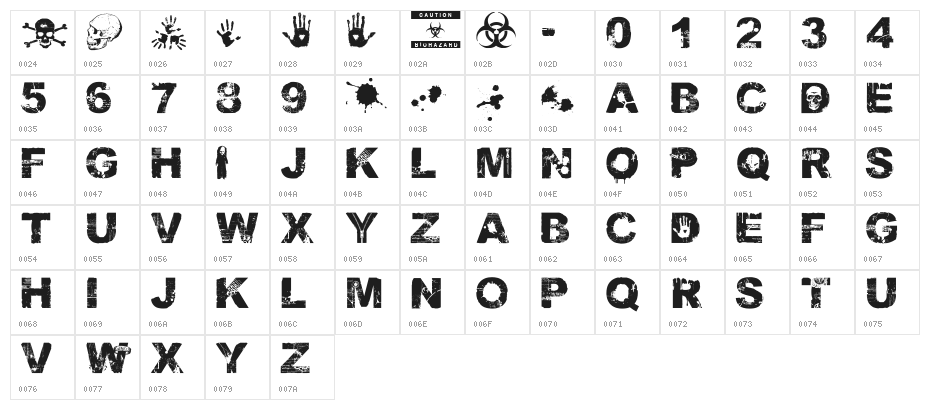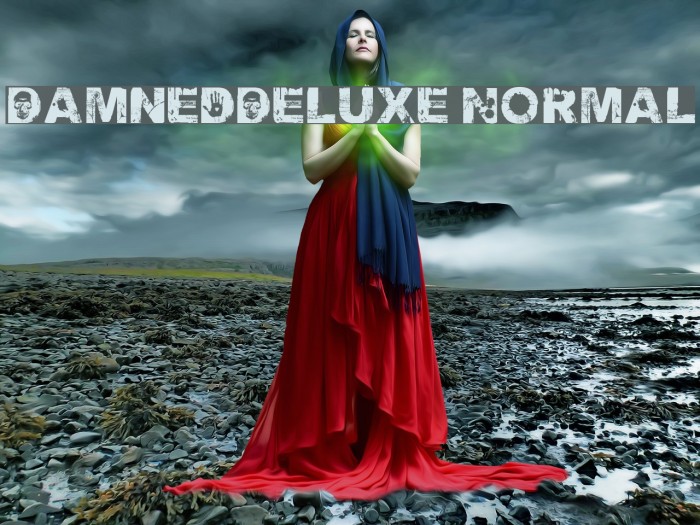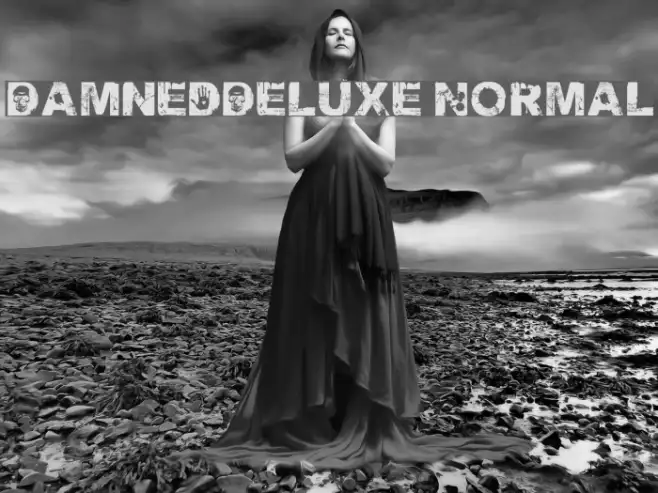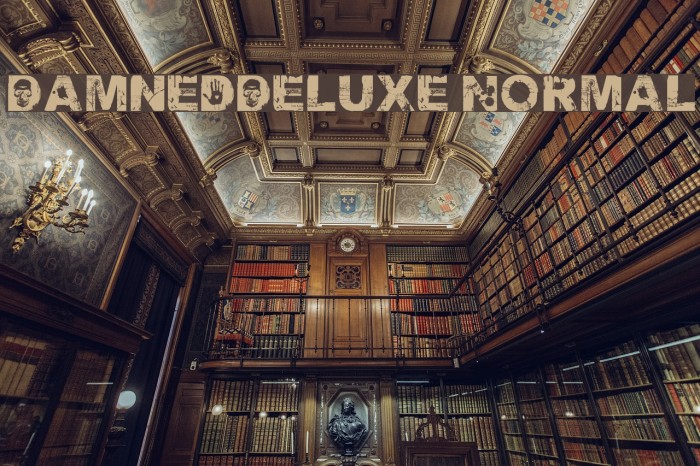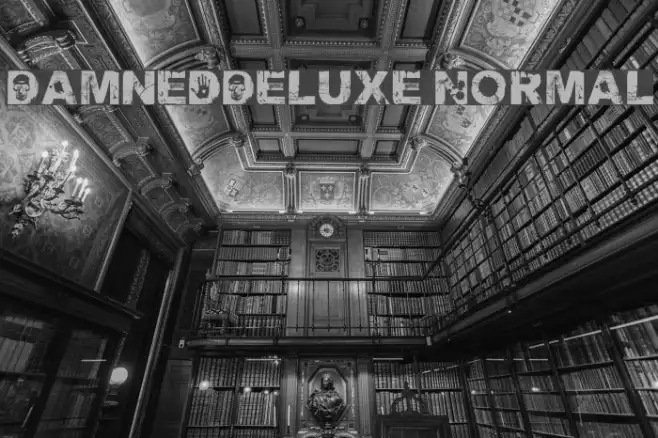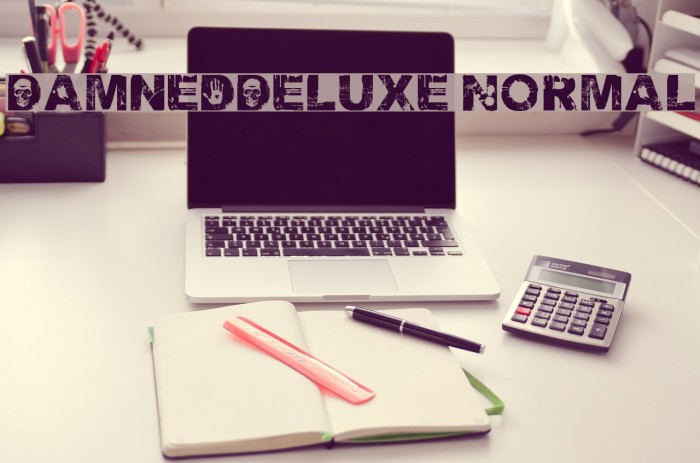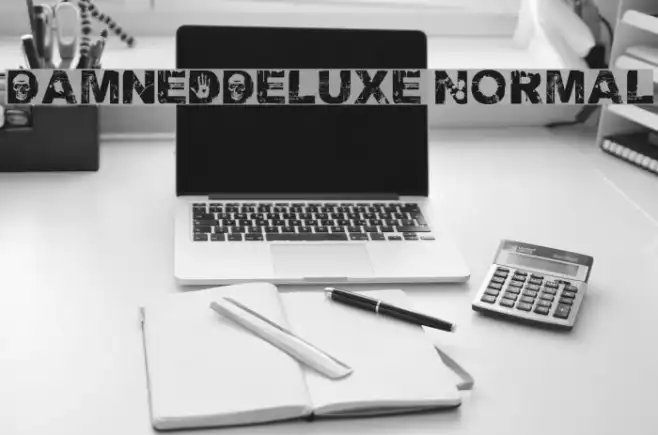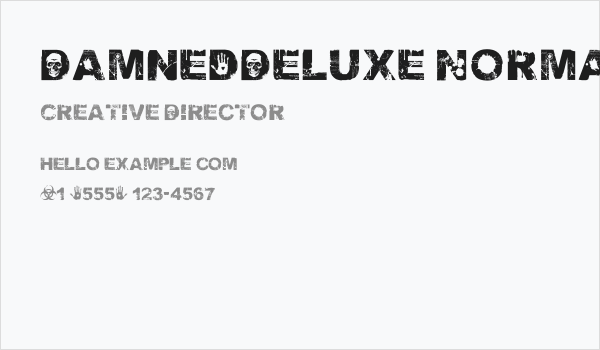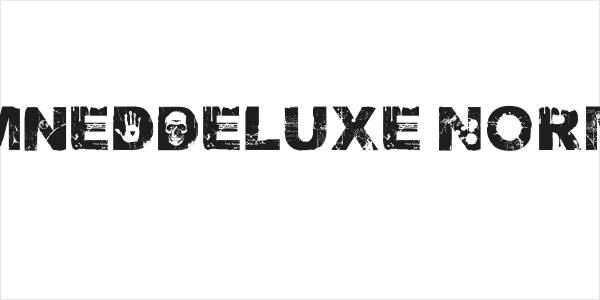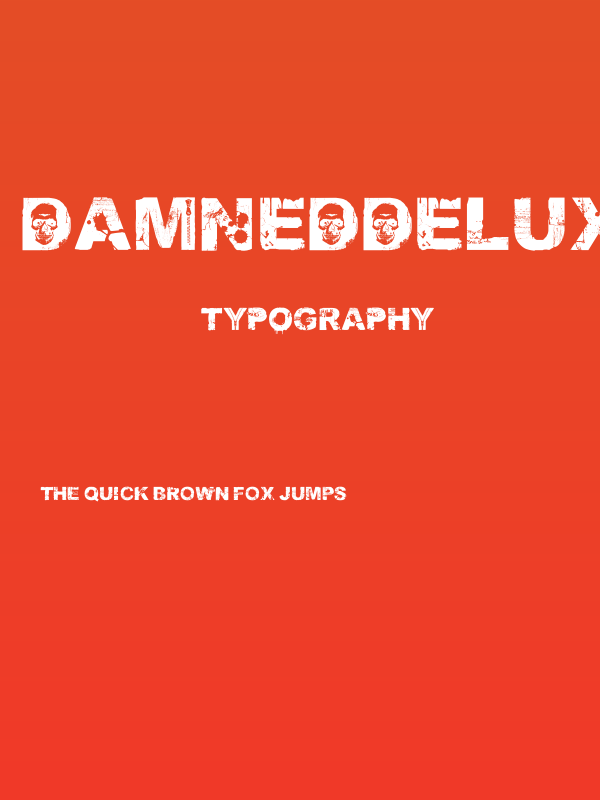
DamnedDeluxe Normal Font
DamnedDeluxe Normal Description
This font features a distressed, grunge style with a bold and impactful appearance. Each character is uniquely designed with a weathered texture, incorporating elements like skulls and splatters, giving it a rugged and edgy look. The uppercase letters are prominent and eye-catching, while the numbers and special characters maintain the same gritty aesthetic. This font is perfect for projects that require a bold statement or a rebellious theme, such as posters, album covers, or horror-themed designs. Its distinctive style makes it stand out, adding a dramatic flair to any visual project.
| Overall Style | Grunge, Edgy, Distressed |
| Proposed Projects | Ideal for posters, album covers, horror-themed designs, and any project needing a bold, rebellious look. |